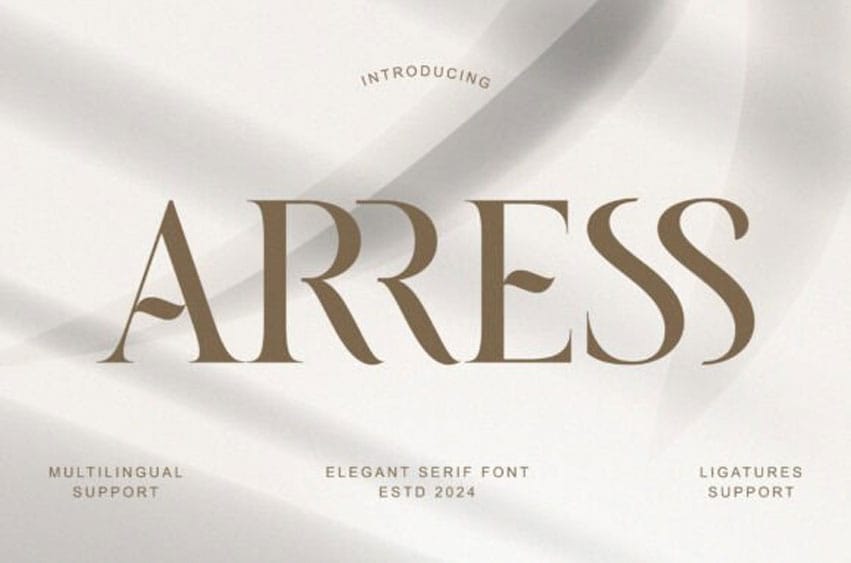
Arress Font is a high-contrast serif font that defines modern luxury. With its sharp terminals and sophisticated curves, it balances timeless classicism with contemporary flair.
It includes beautiful ligatures and multilingual support, making it an ideal choice for high-end fashion branding, editorial headlines, and sleek lifestyle logos.